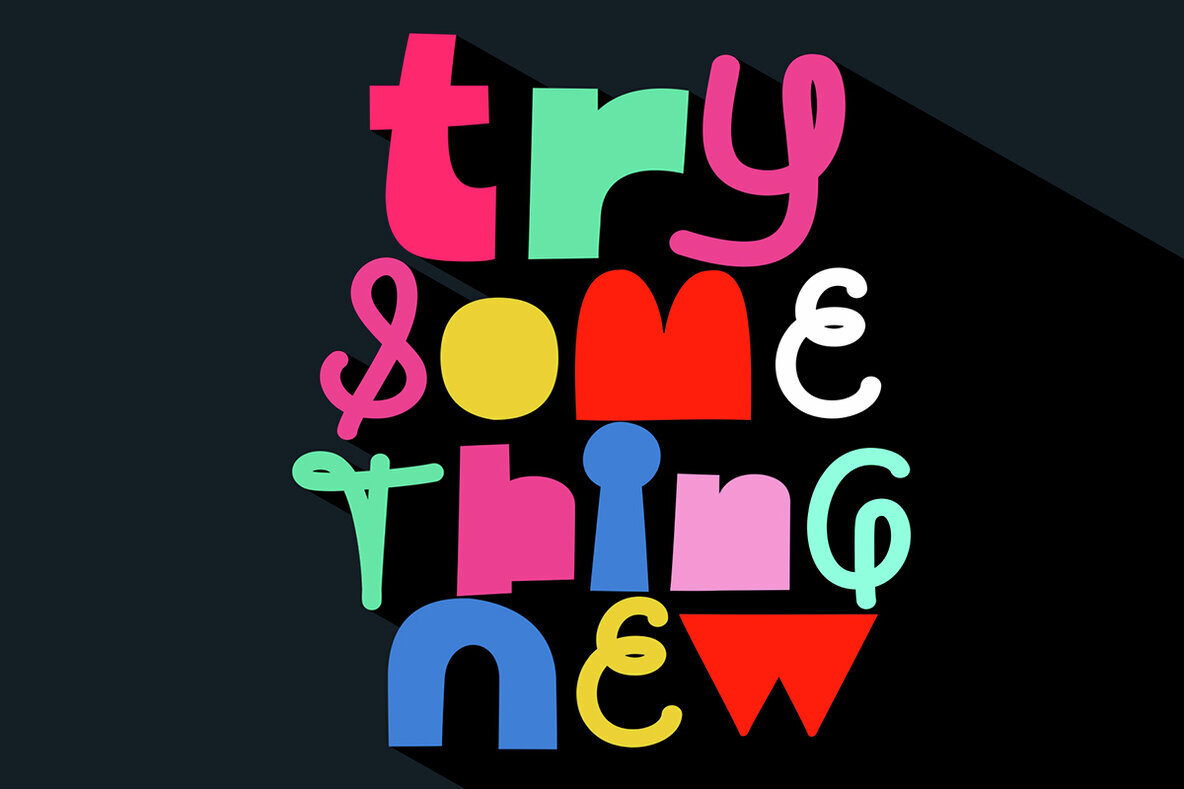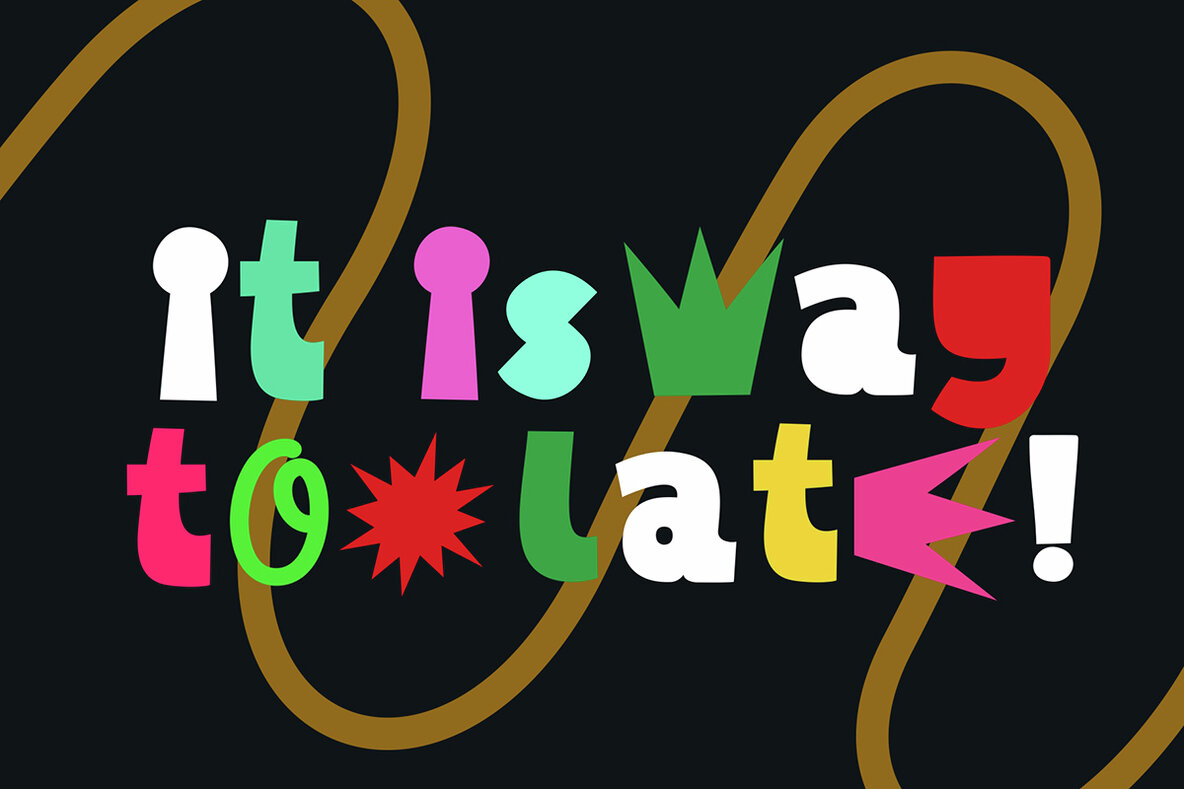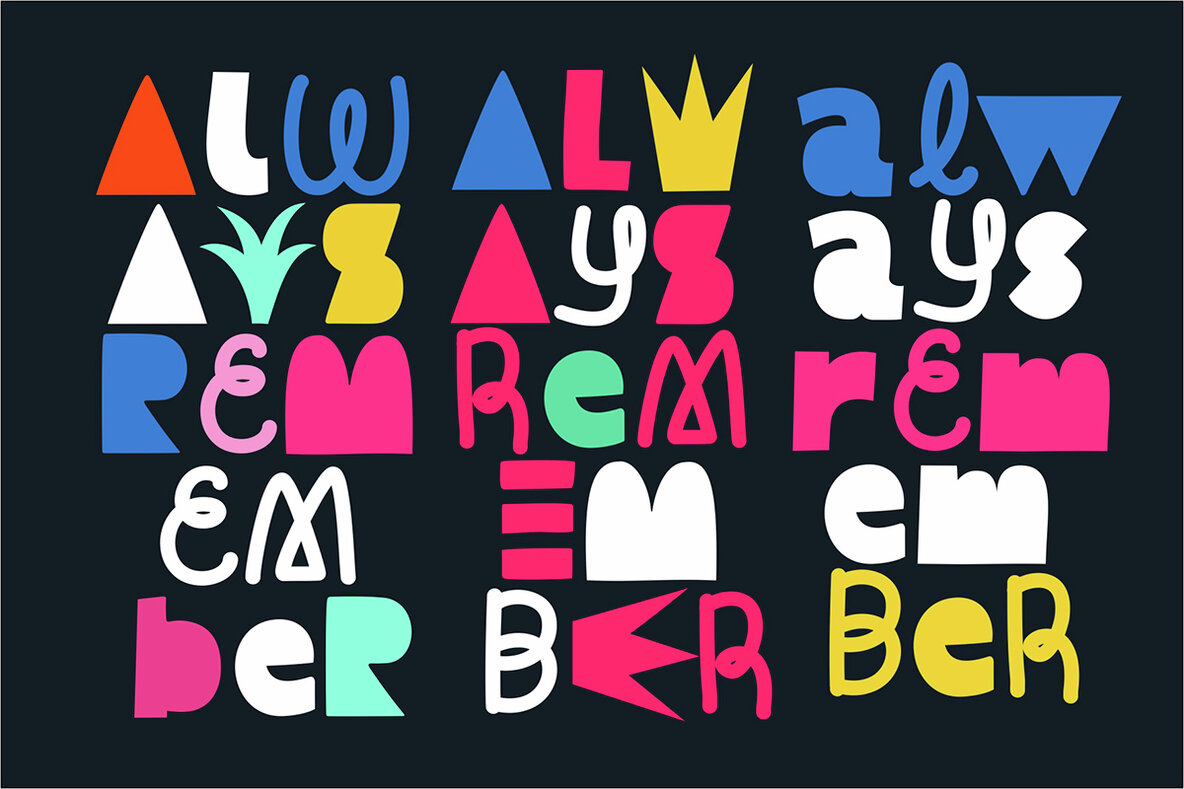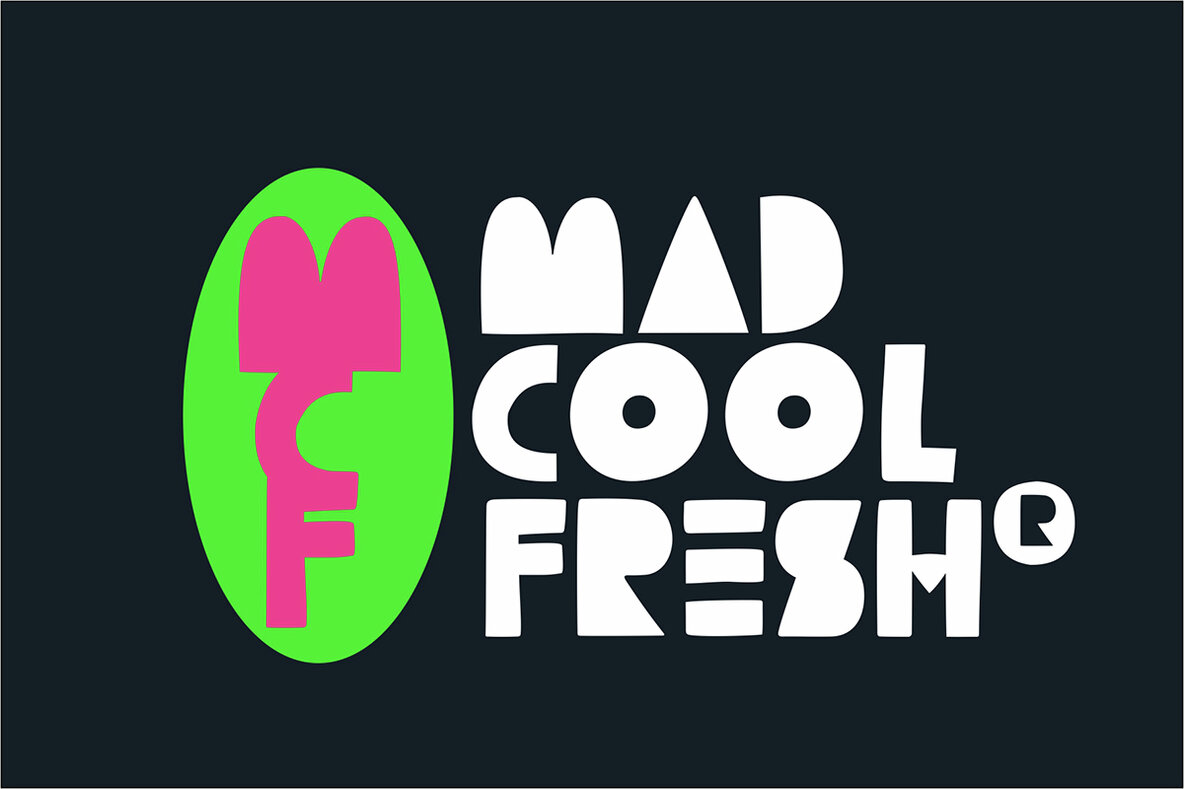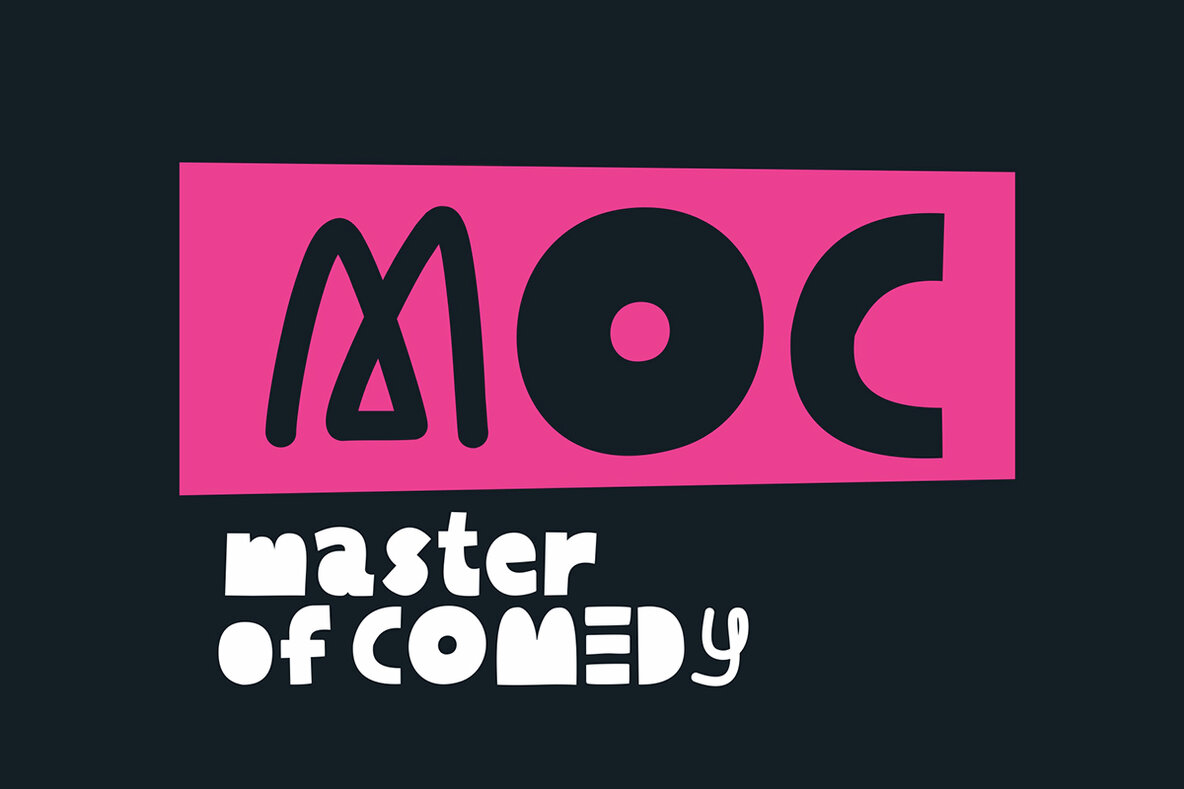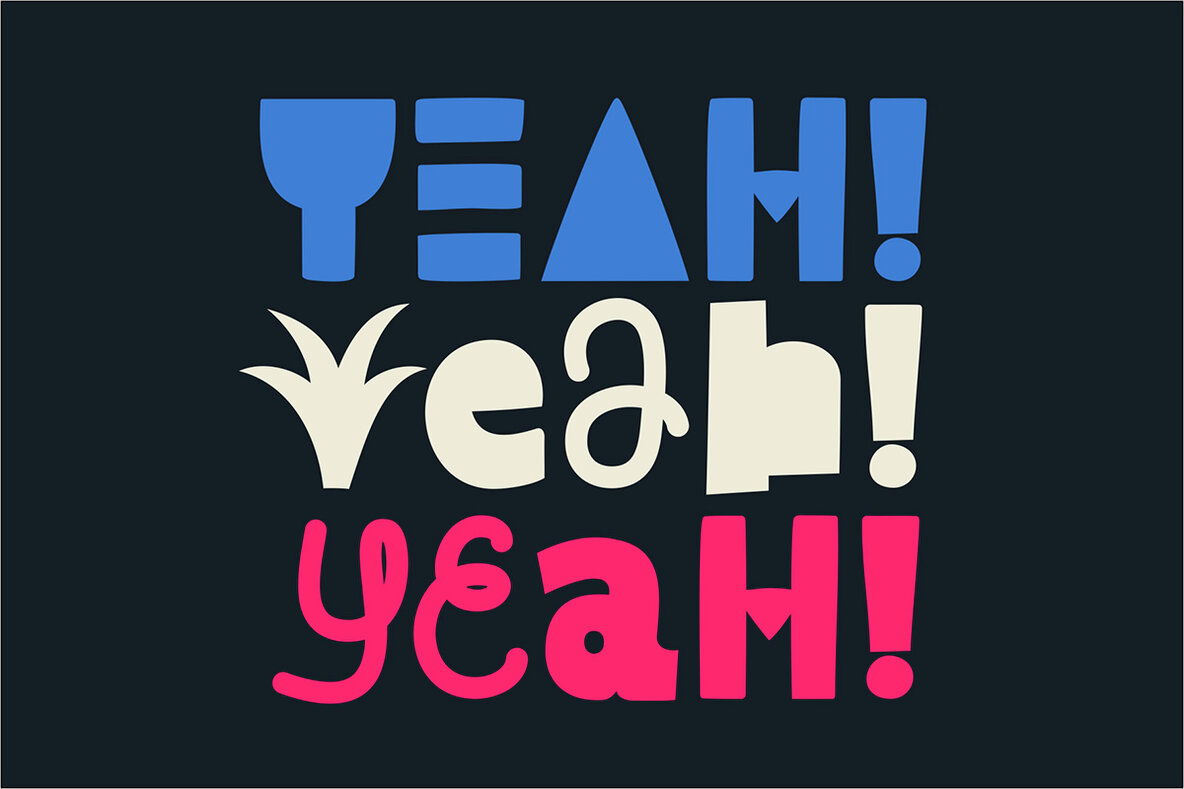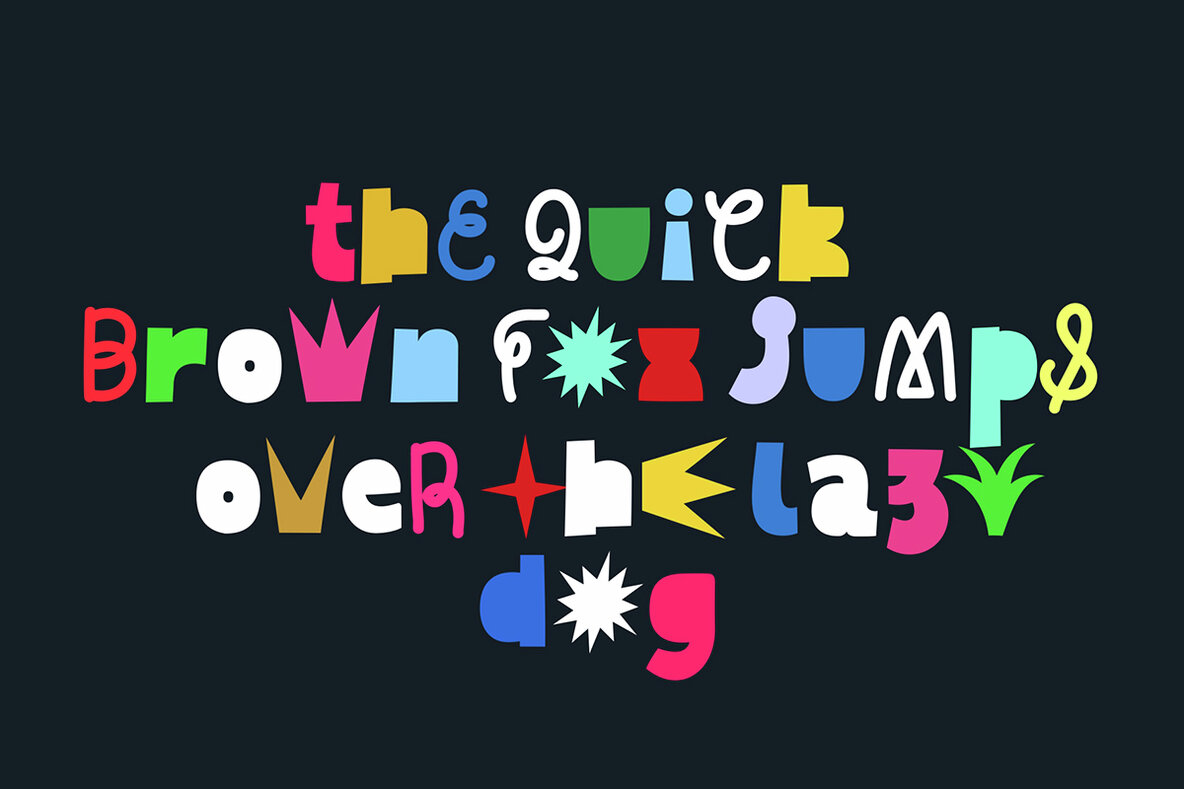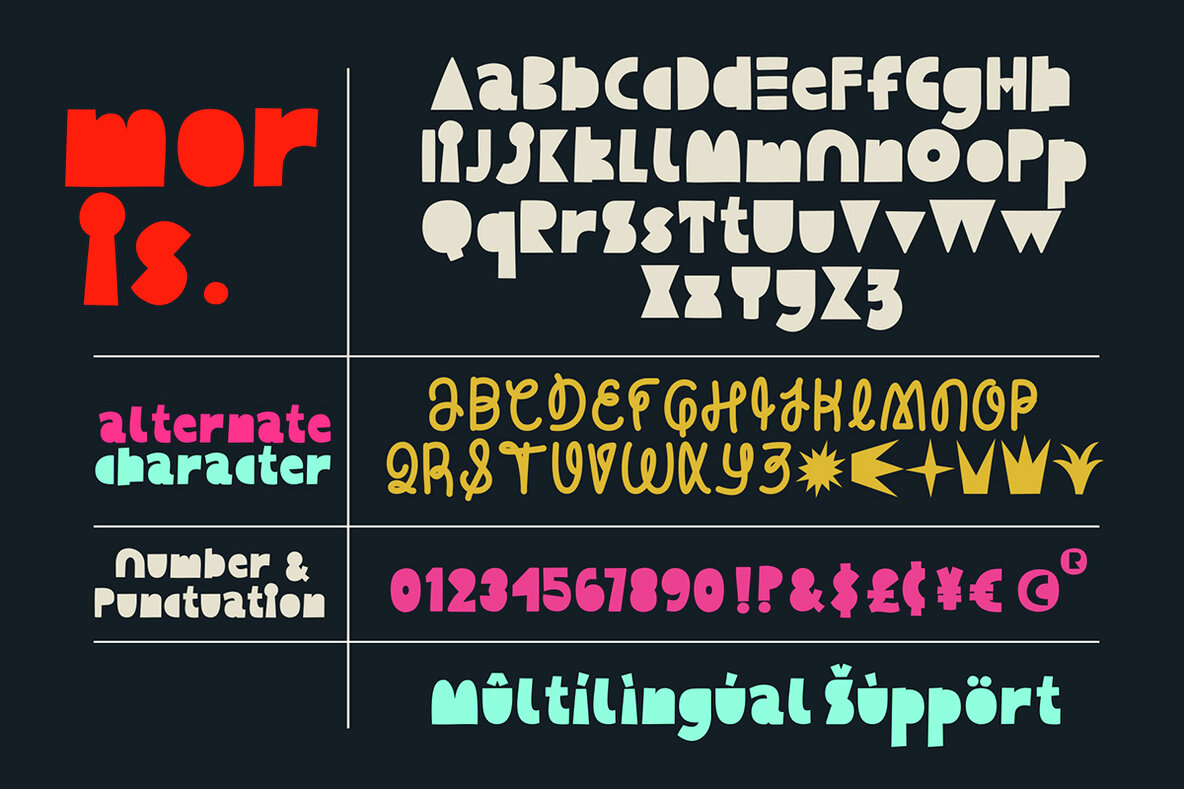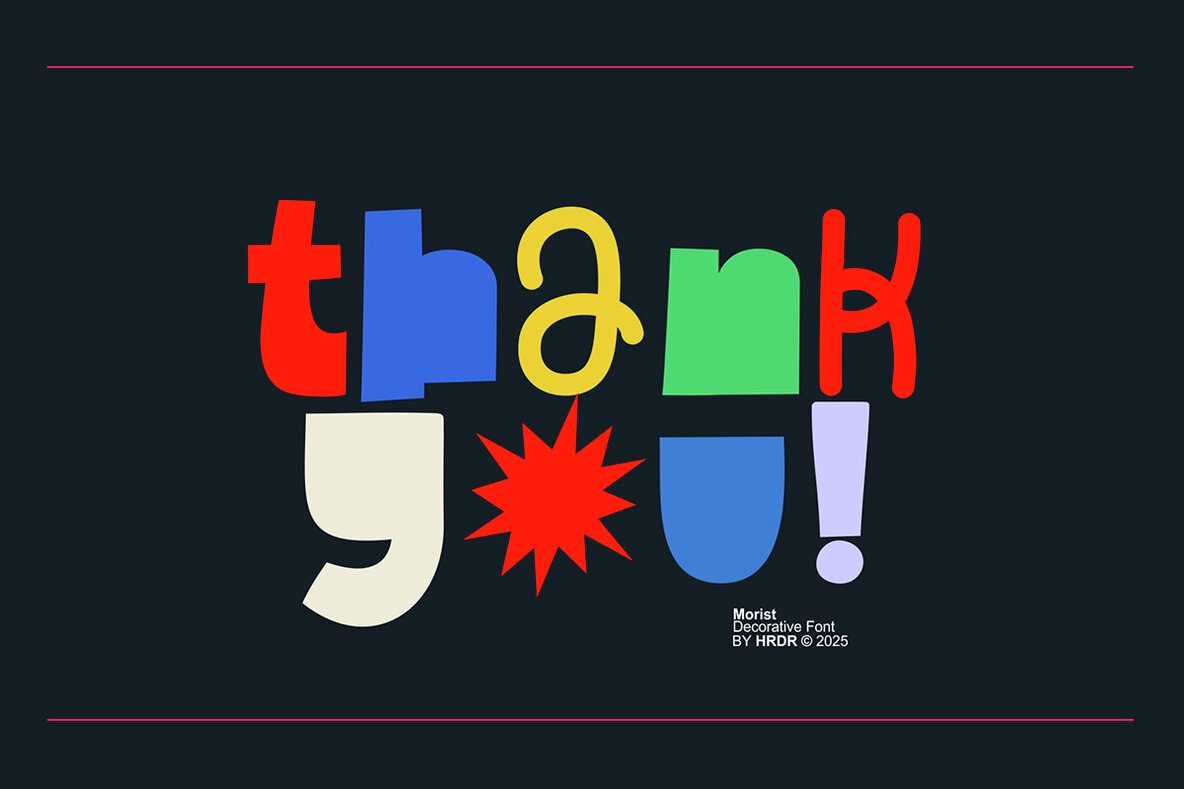
Moris
The Moris typeface offers a contemporary take on decorative fonts, merging elegance and modern flair seamlessly. Perfectly suited for design professionals, it elevates branding with its refined aesthetic. Moris is ideal for logos, headlines, and titles, bringing sophistication to wedding designs, social media posts, product packaging, and more. Its versatility makes Moris a go-to choice for numerous applications:Moris: Elegance and Modernity in Decorative Typography